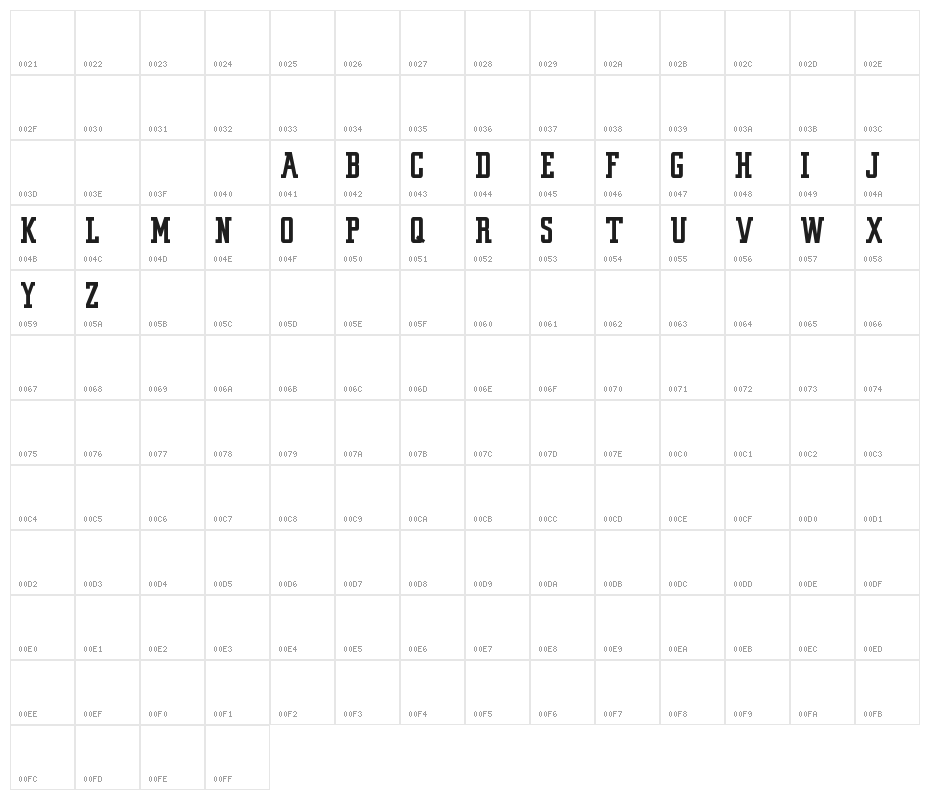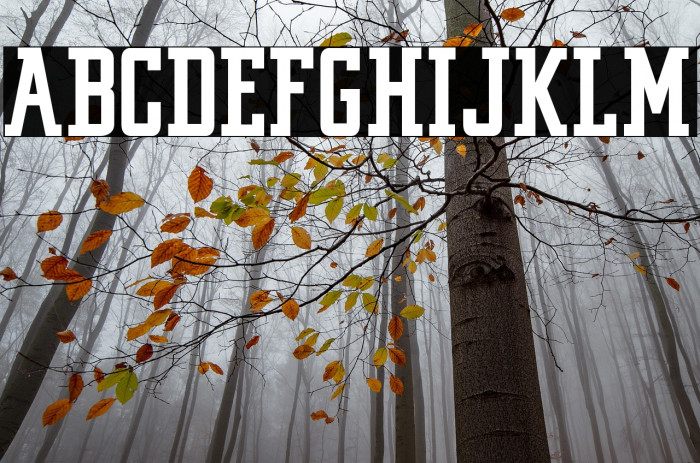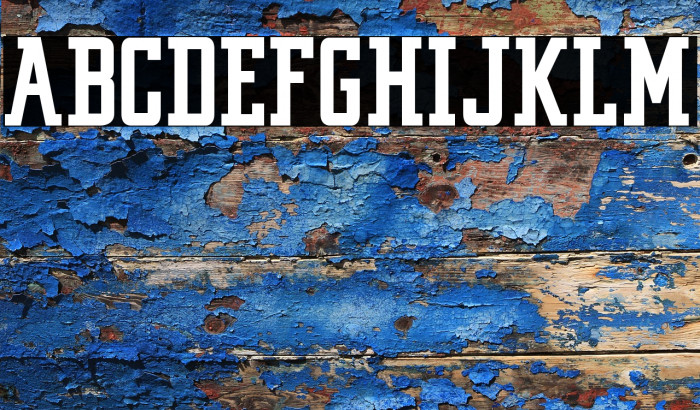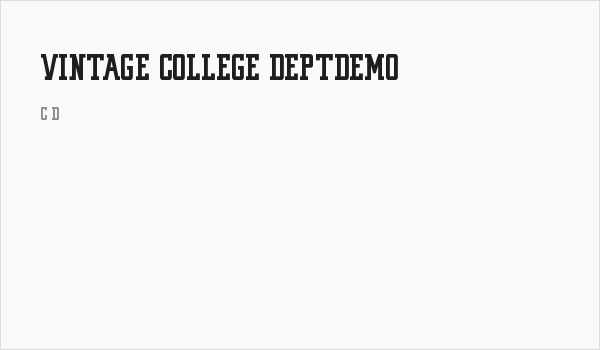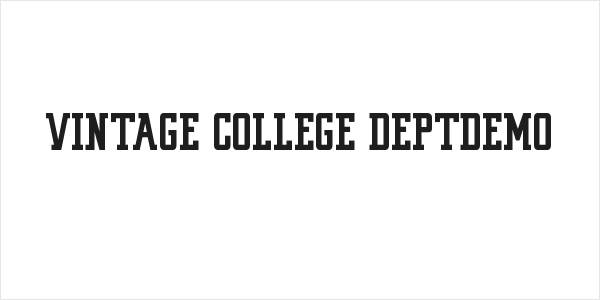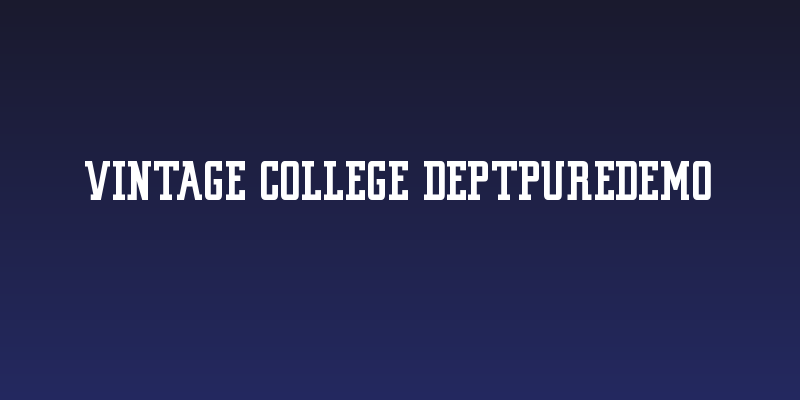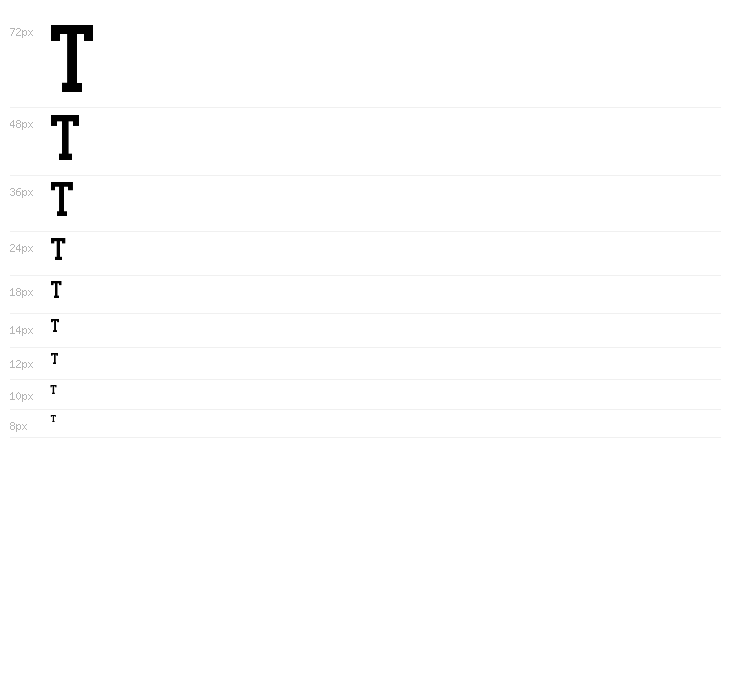
VINTAGE COLLEGE DEPT_pure_DEMO Font
VINTAGE COLLEGE DEPT_pure_DEMO Description
This font exudes a classic collegiate style, reminiscent of traditional varsity and sports team lettering. The bold, blocky characters are designed with a strong presence, featuring slab serifs that add a touch of vintage charm. The uppercase letters are uniform in height, creating a cohesive and structured appearance. The font's robust and sturdy design makes it ideal for projects that require a sense of tradition and authority. Its clean lines and well-defined serifs ensure readability while maintaining a distinctive and memorable look.